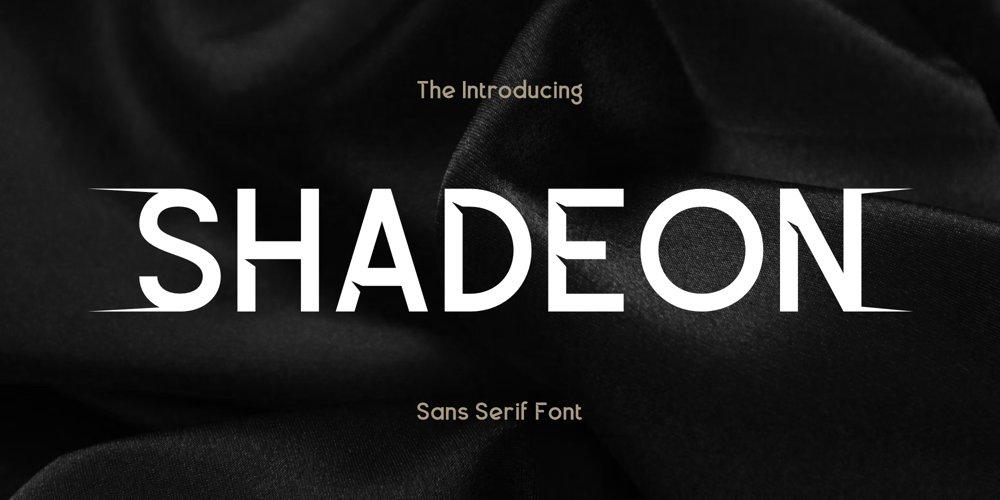
Shadeon Font Family was designed by Heru Utama Putra and published by Letterena Studios. Shadeon contains 2 styles and family package options. Shadeon is a modern and classy sans serif font perfect for elegant and luxury logos, book or movie title designs, fashion brands, magazines, clothes, lettering, quotes, and so much more.